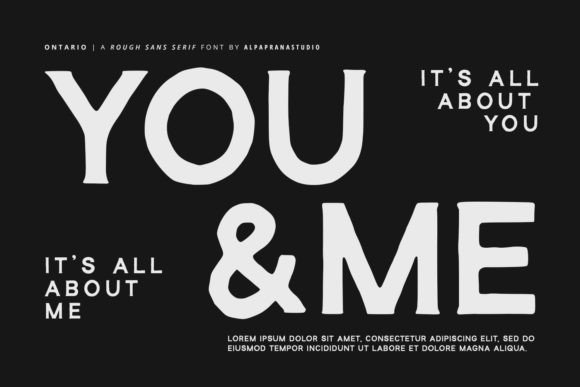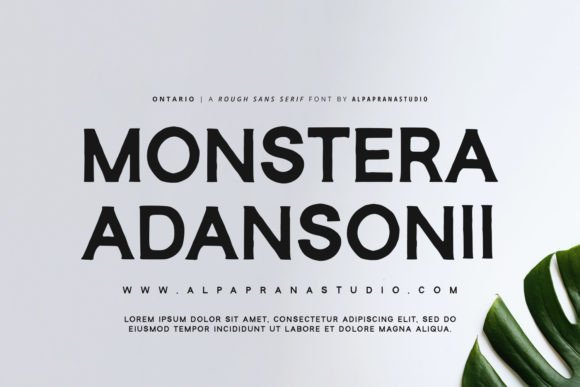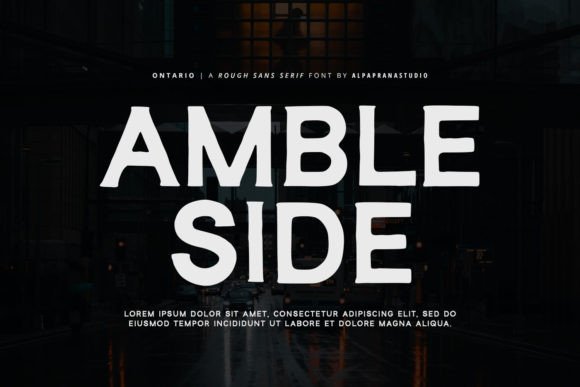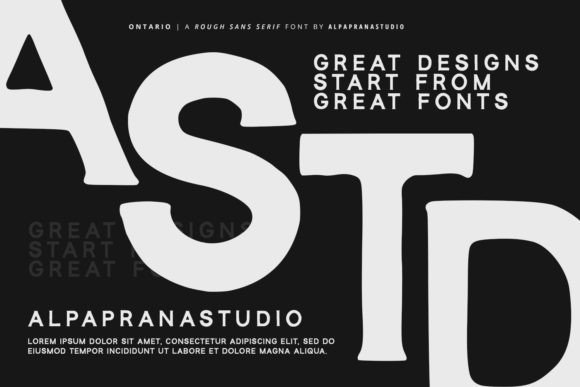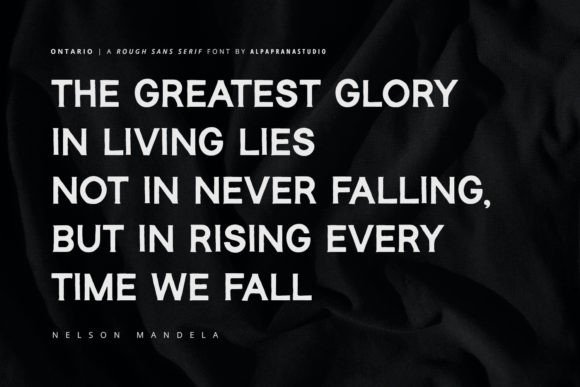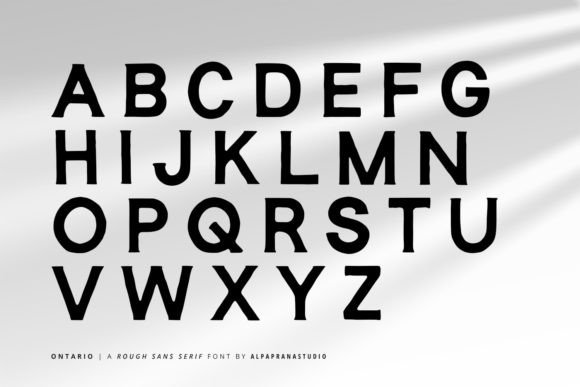
Introduction to Ontario Font Font
Fonts play a crucial role in design, and the Ontario Font font is a typeface that brings both character and versatility to any project. Whether you’re working on a branding project, a website, or a print design, the Ontario Font font offers a unique style that can elevate your work.
Ontario is a rough sans font with retro modern feels.
It is perfectly used for branding, logo design, lettering, logotype, clothing, posters, magazines, packaging, shopping bags, t-shirts, book covers, photography, special events and other design project .
Key Features of Ontario Font Font
Why Choose Ontario Font Font?
The Ontario Font font is more than just a typeface – it’s a design tool that helps you communicate your message with style and clarity. Its unique character set and versatile design make it suitable for a wide range of applications, from elegant invitations to bold headlines.
With its carefully crafted letterforms and balanced proportions, the Ontario Font font ensures readability and visual appeal across all mediums.
What makes Ontario Font font special?
The Ontario Font font stands out with its unique design, exceptional readability, and versatility across various design applications.